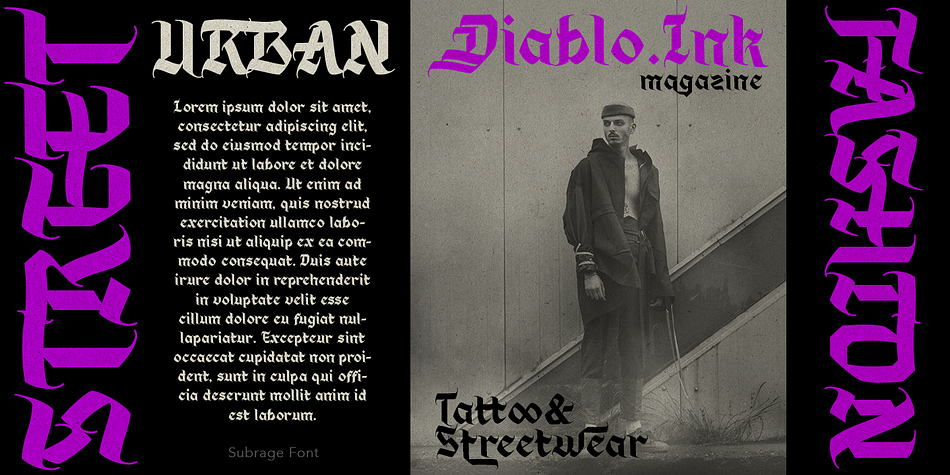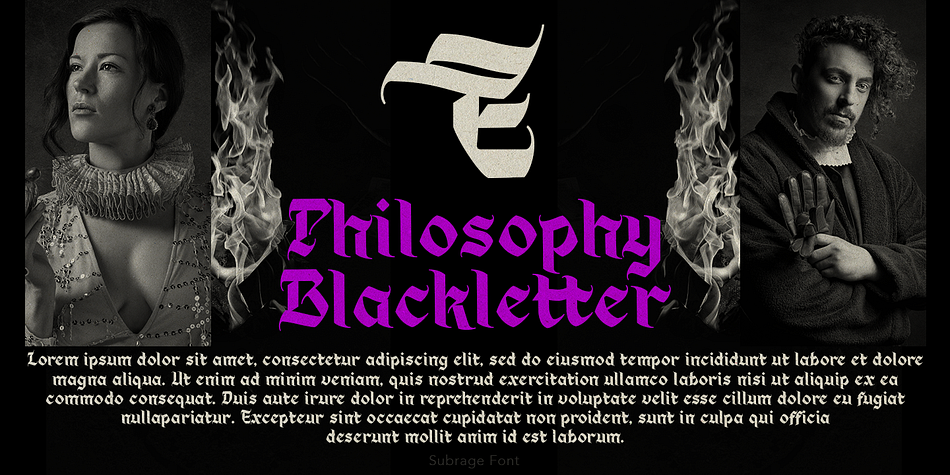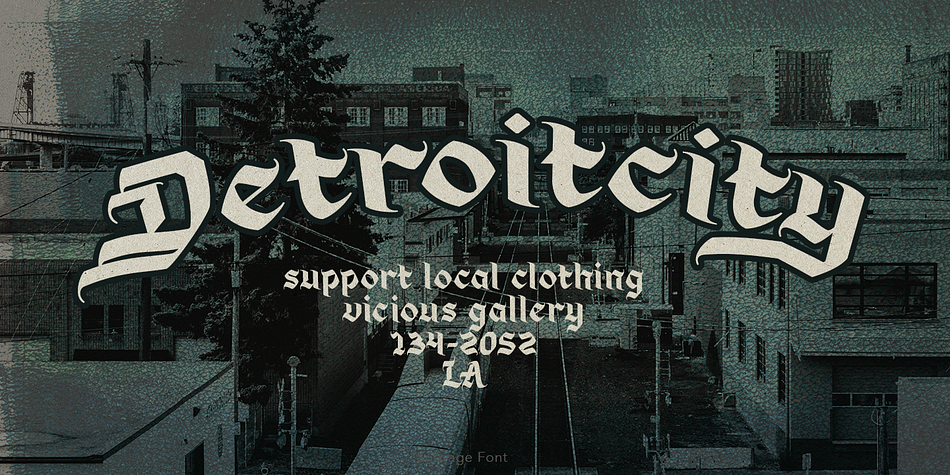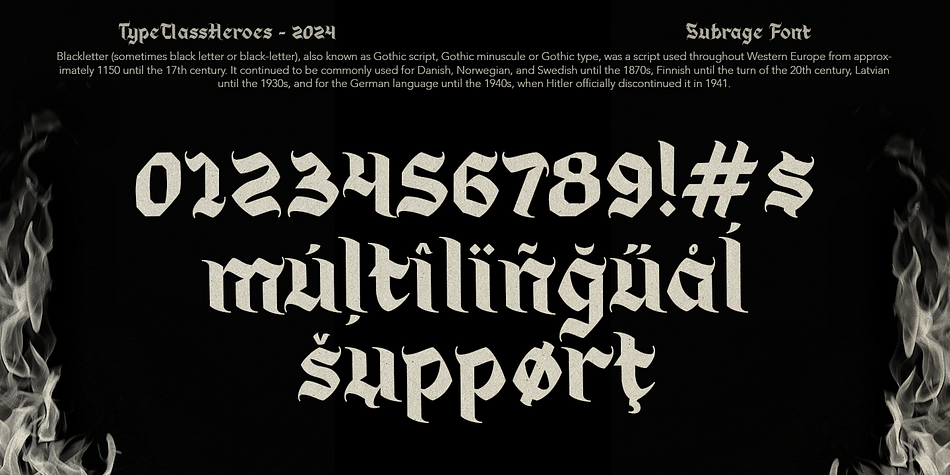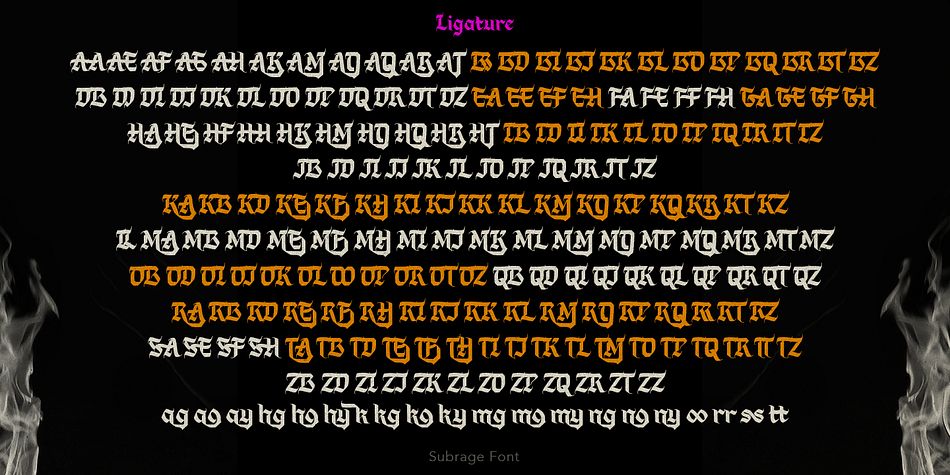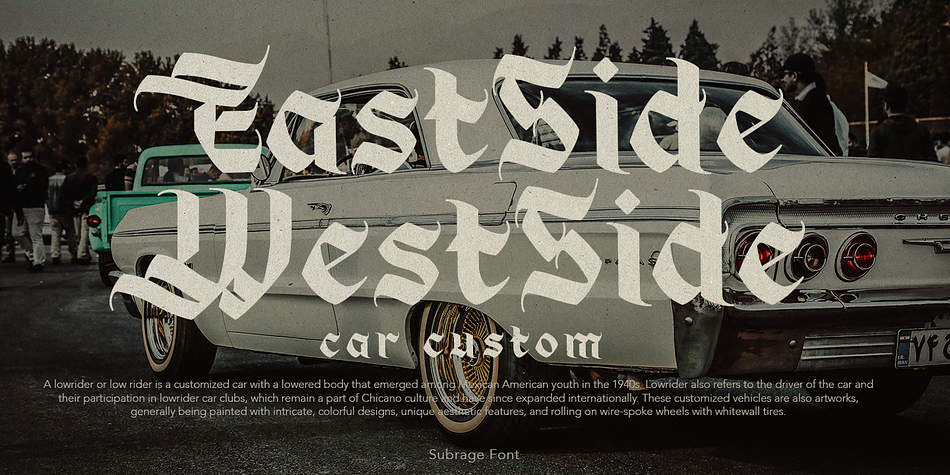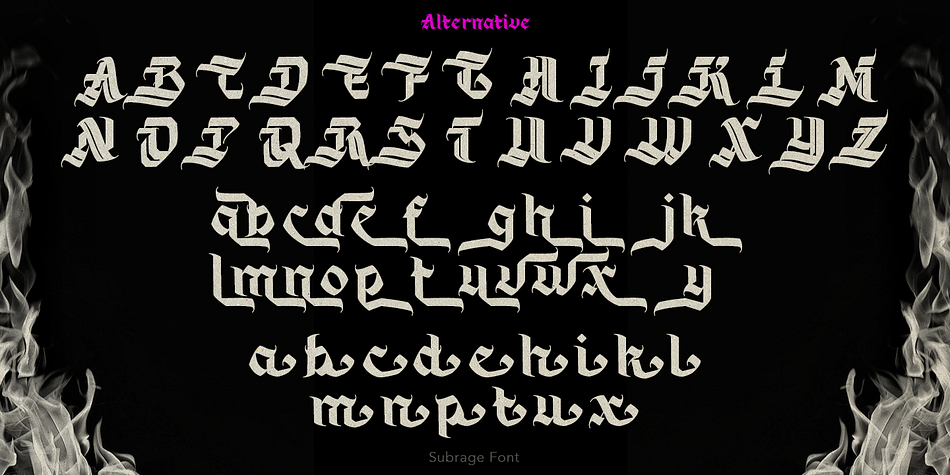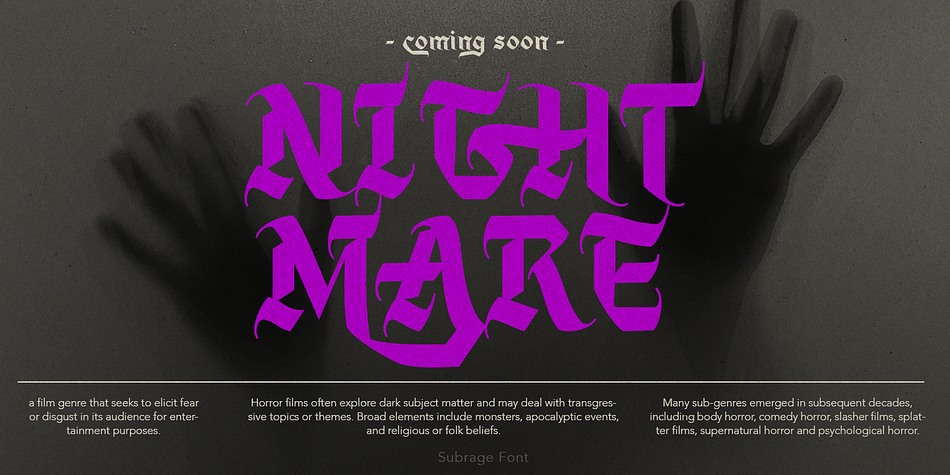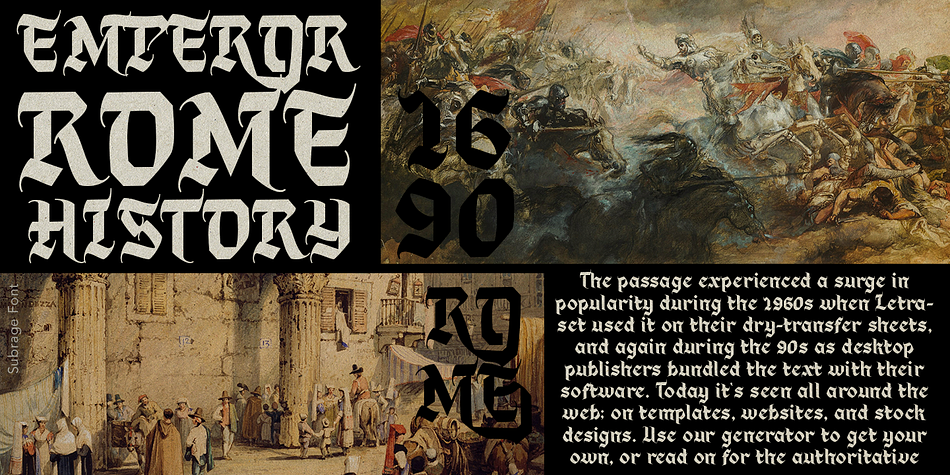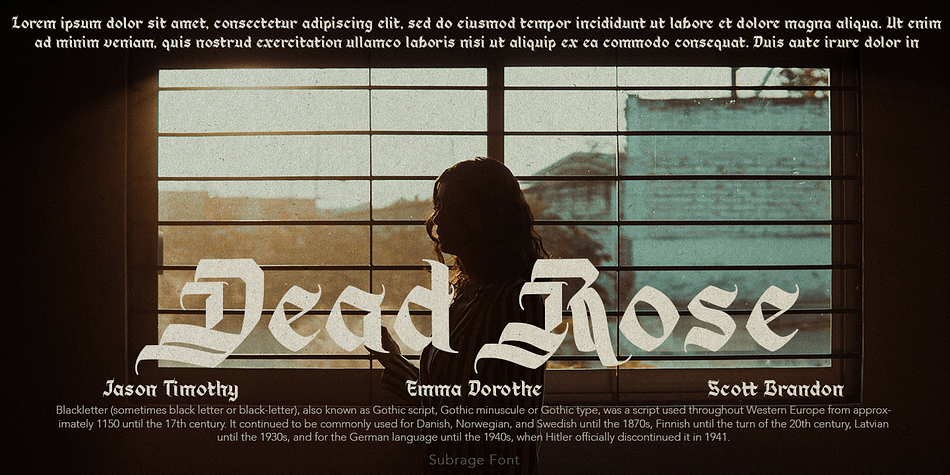
Subrage
Subrage is a blackletter font family published by TypeClassHeroes.
Masterfully designed to become a strong type, this font has the potential to bring each of your creative ideas to the highest level. Come with different style combine with ligatures and special alternative glyphs so you can create a lots with layouts and compositions. Subrage brings a touch of luxury and bespoke custom typography suitable for merchandise, clothing, apparel, badges, logos, poster titles, and much more.
- Alternative
- Ligature